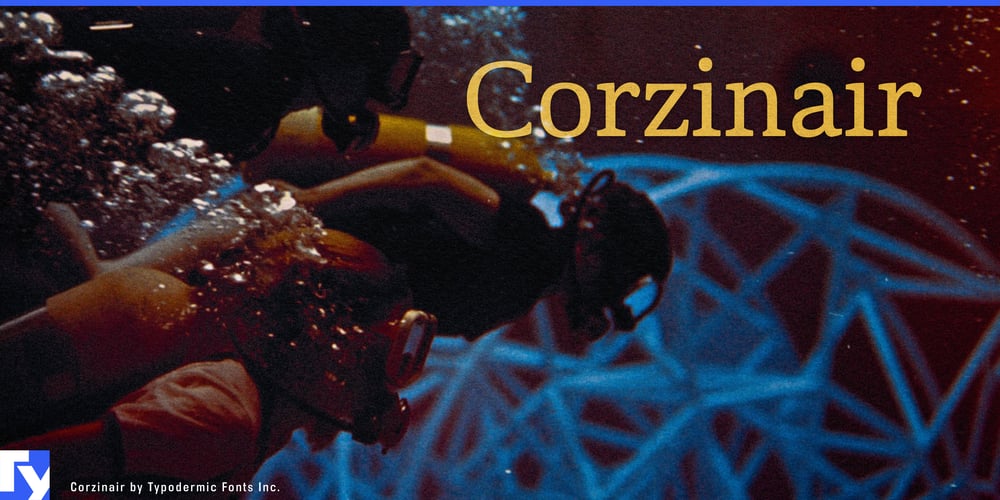
Corzinair
Corzinair font
Corzinair Font Family was designed by Ray Larabie and published by Typodermic. Corzinair contains 6 styles and family package options. Introducing Corzinair, a typeface that marries the rugged charm of the past with the bold confidence of the present. Inspired by the iconic IBM Selectric typewriter fonts of the 1960s, Corzinair stands as a testament to an era when simplicity and functionality were the cornerstones of innovation. Its wide, squarish shapes and distinctive serifs don’t just catch the eye—they command attention, making every word count.Corzinair isn’t just a font; it’s a statement. Its robust serifs add a touch of grit and determination to your message, perfect for businesses and individuals looking to make their mark in a crowded marketplace. Whether you’re crafting a powerful corporate identity, designing an impactful editorial layout, or creating eye-catching signage, Corzinair delivers with unwavering clarity and strength. Versatility is at the heart of Corzinair’s design. Available in three weights—regular, bold, and italic—it adapts effortlessly to a wide range of design needs. The inclusion of separate Small-Caps styles adds another layer of flexibility, making it even easier to deploy on the web and in various applications. This thoughtful feature set ensures that Corzinair can handle everything from headlines that demand attention to body text that requires clarity and readability. In today’s global marketplace, Corzinair speaks volumes in multiple languages. Supporting a vast array of Latin-based European writing systems, this typeface ensures your message retains its impact across borders. From Afrikaans to Zulu, and over 100 languages in between, Corzinair maintains its distinctive character and legibility. Whether you’re designing for a local audience or an international campaign, Corzinair provides the linguistic versatility to communicate with confidence.Corzinair isn’t just about looking back—it’s about moving forward with purpose. It embodies the best of mid-century design principles while meeting the demands of modern typography. In a world of fleeting trends, Corzinair offers timeless appeal, marrying nostalgia with contemporary relevance.Make your mark with Corzinair—the typeface that means business. It’s more than just letters on a page; it’s a tool for those who understand that in the world of communication, how you say something is just as important as what you say. Choose Corzinair, and let your words stand tall, strong, and unmistakably clear.